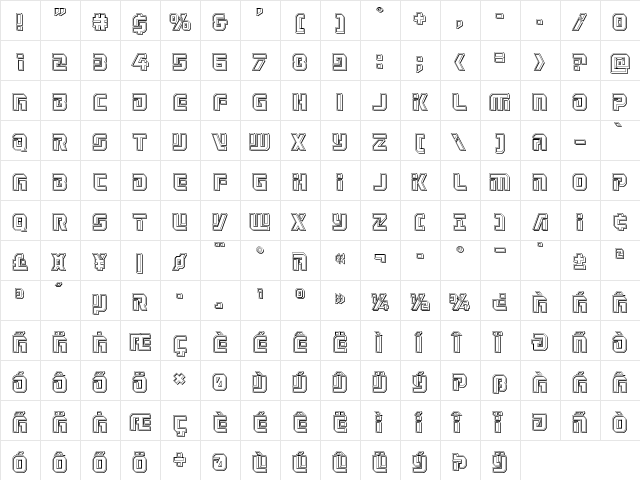
Legio Sabina Engraved Regular
Design Context for Legio Sabina Engraved Typeface
Legio Sabina Engraved brings ornamental detail and strong personality to headlines and identities, where visual impact matters more than quiet functionality.
Font Pairing: Pair with a clean neutral sans-serif for body copy to let Legio Sabina Engraved's character lead without overwhelming the composition.
Pro Tip: Treat Legio Sabina Engraved as the centrepiece of your typographic hierarchy. One strong heading set in a decorative face can carry an entire layout.